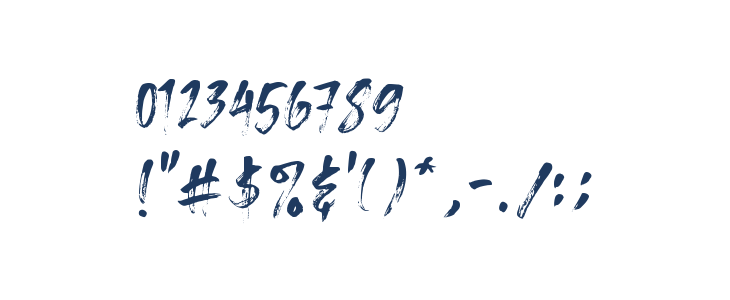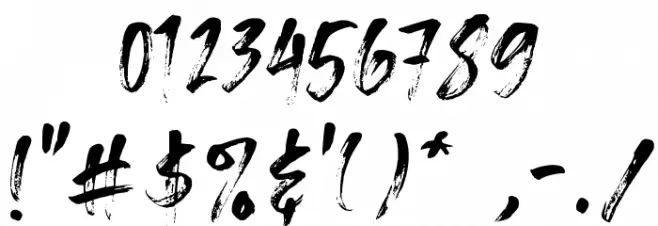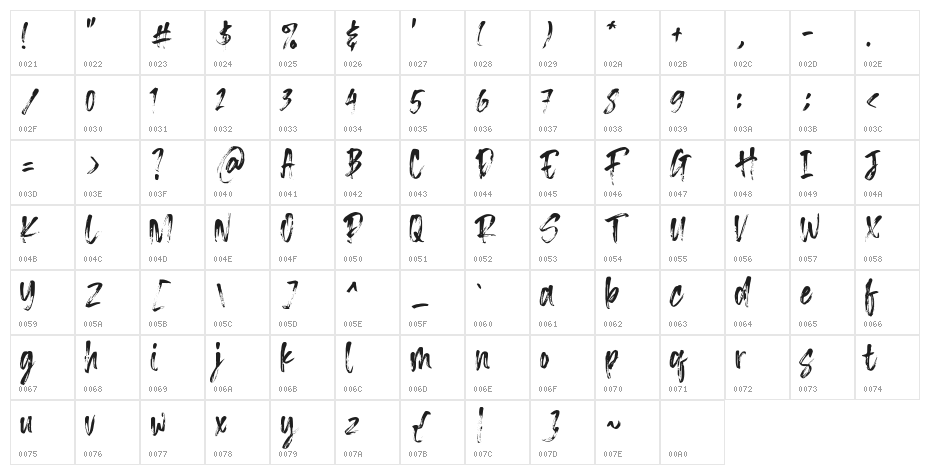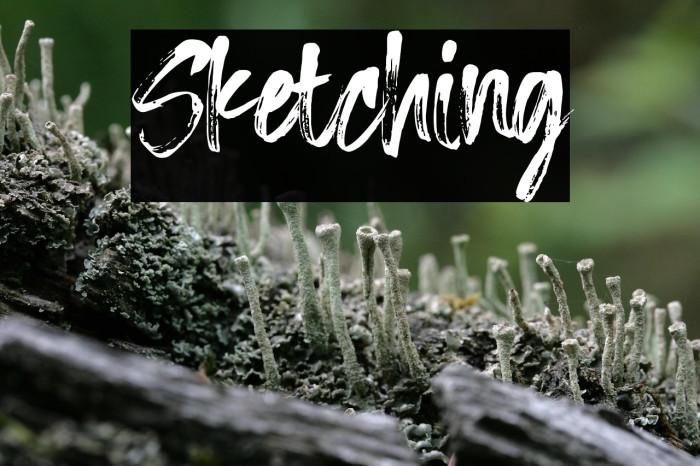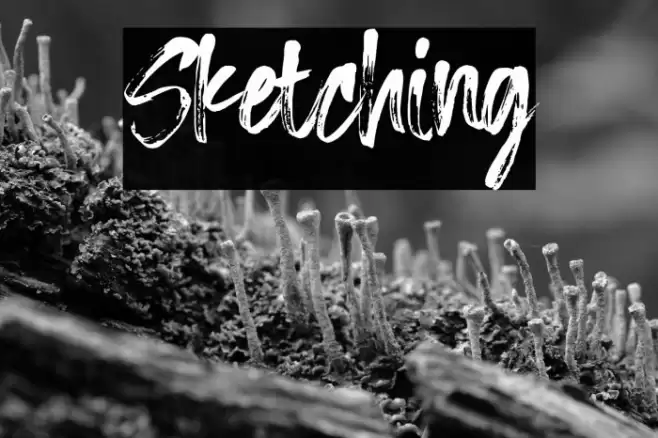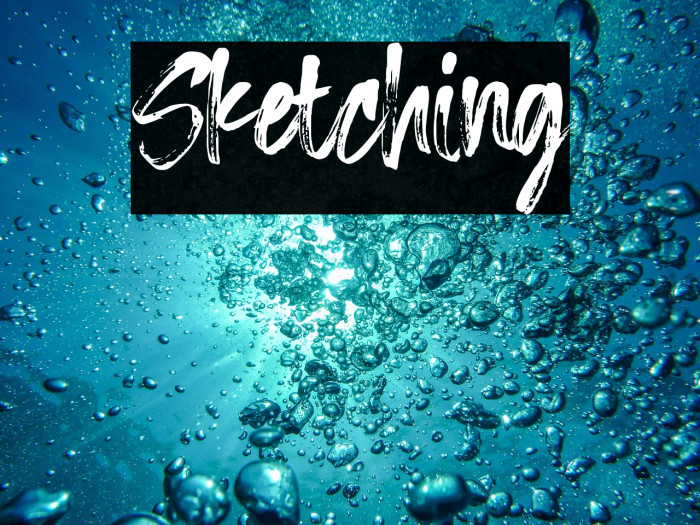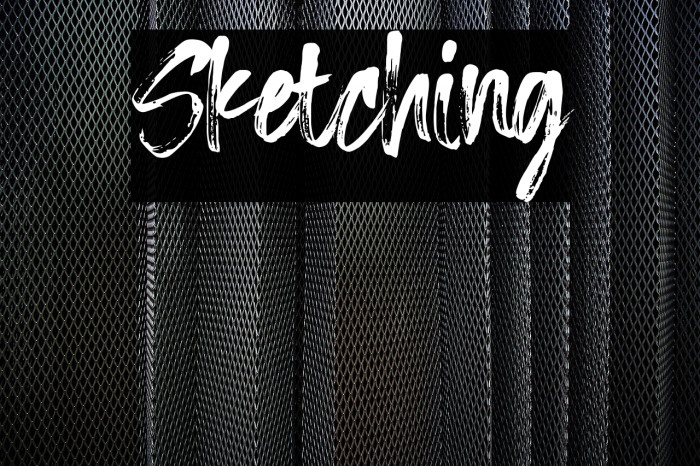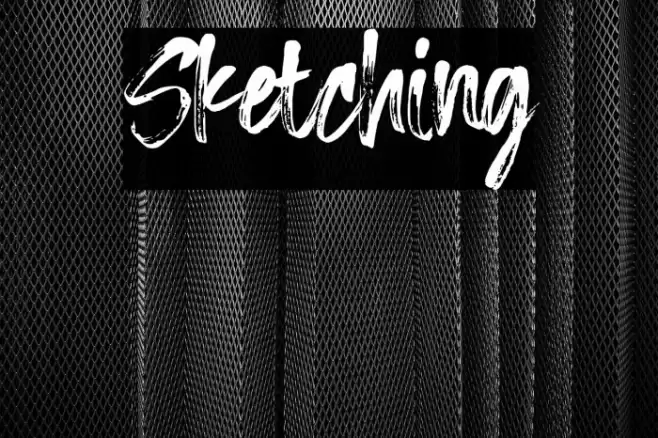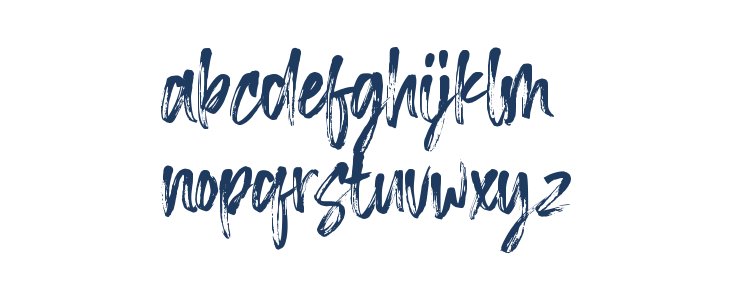
Sketching Font
Sketching Description
This font exudes a dynamic and expressive style, characterized by its brush-like strokes that convey a sense of movement and energy. The letters are bold and slightly irregular, giving it a hand-painted appearance that is both artistic and spontaneous. The uppercase and lowercase letters maintain a consistent style, with varying thickness in the strokes that adds depth and texture. Numbers and special characters follow the same energetic design, making the font versatile for creative projects. Its unique style makes it stand out, perfect for designs that require a personal touch.
| Proposed Projects | Ideal for artistic projects, branding, posters, and any design requiring a bold, personal touch. |